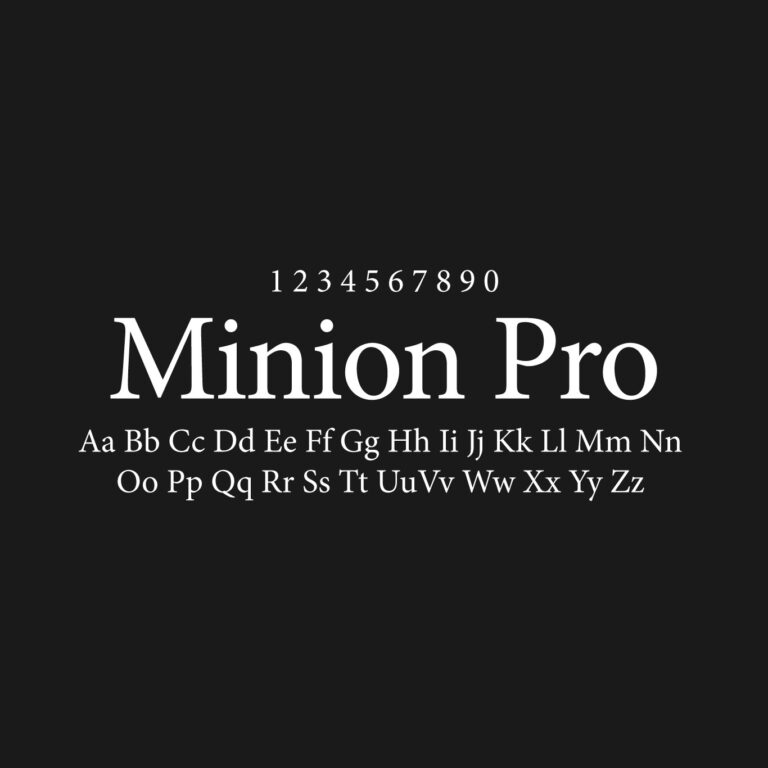
Minion Pro is a serif typeface designed by Robert Slimbach and associated with Adobe’s professional type library. It has a literary character, readable proportions and a traditional book typography feel, making it useful for editorial layouts, books, magazines, essays, reports, academic documents, invitations, branding and refined print design.
Designer: Robert Slimbach
Foundry: Adobe